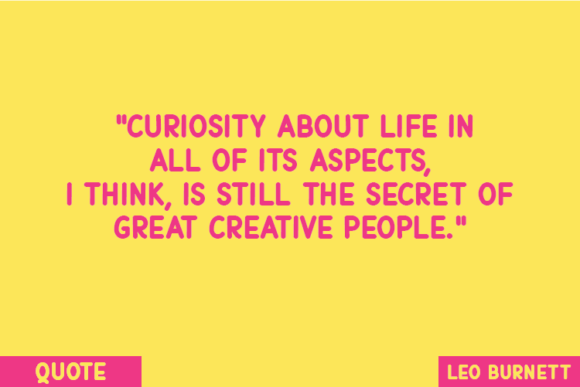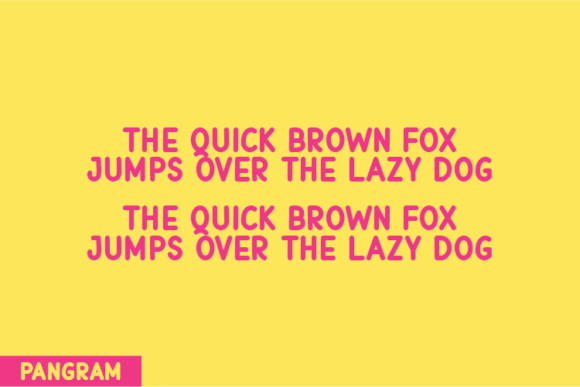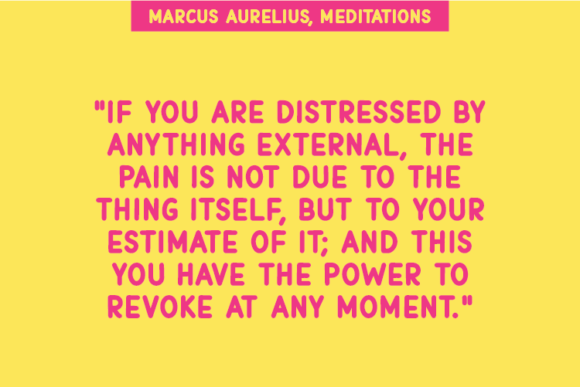
About Healvetica
Healvetica is a natural handwritten font made without changing a single node in each character’s indentation – this makes this font very interesting and unique. Perfect for quotes, notes, tees, and any product design.